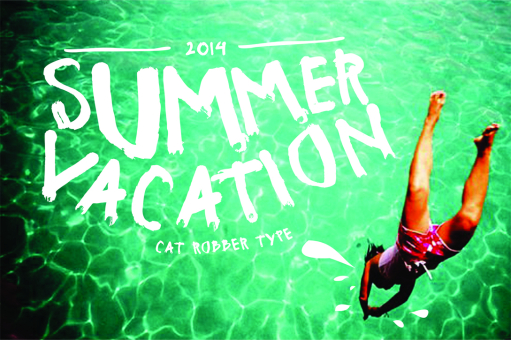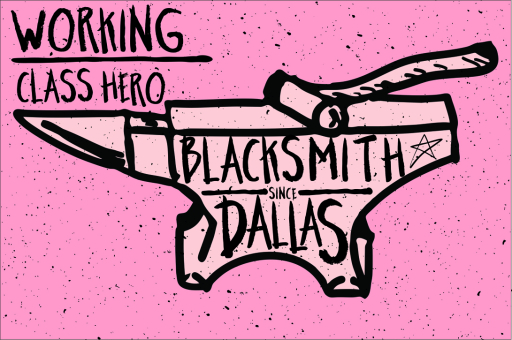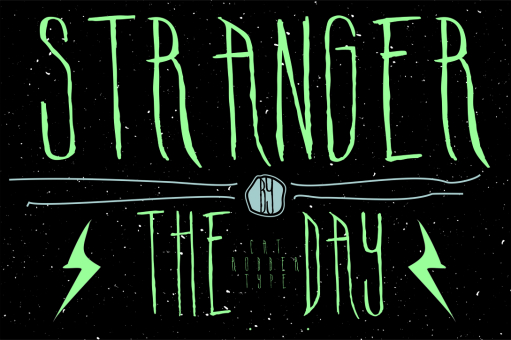
bundel
skinny is a handwriting-style font, skinny inspired from the movie nightmare before Chrismast.
basqi is a typeface hand draw, where the elements of line markers graffiti is
very pronounced indeed.
basqi is a typeface hand draw, where the elements of line markers graffiti is
very pronounced indeed.
Designer: boiem hanafiyah